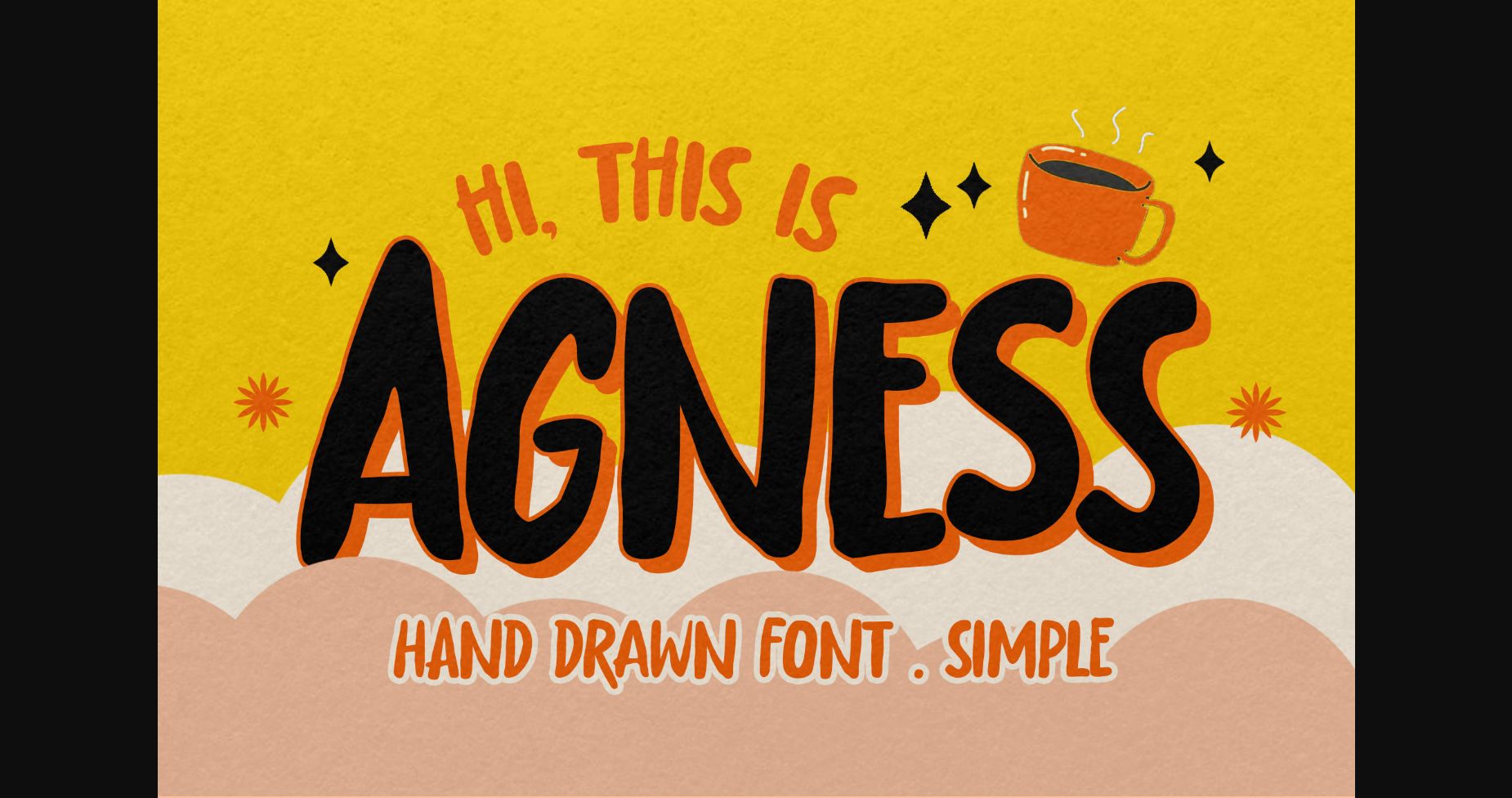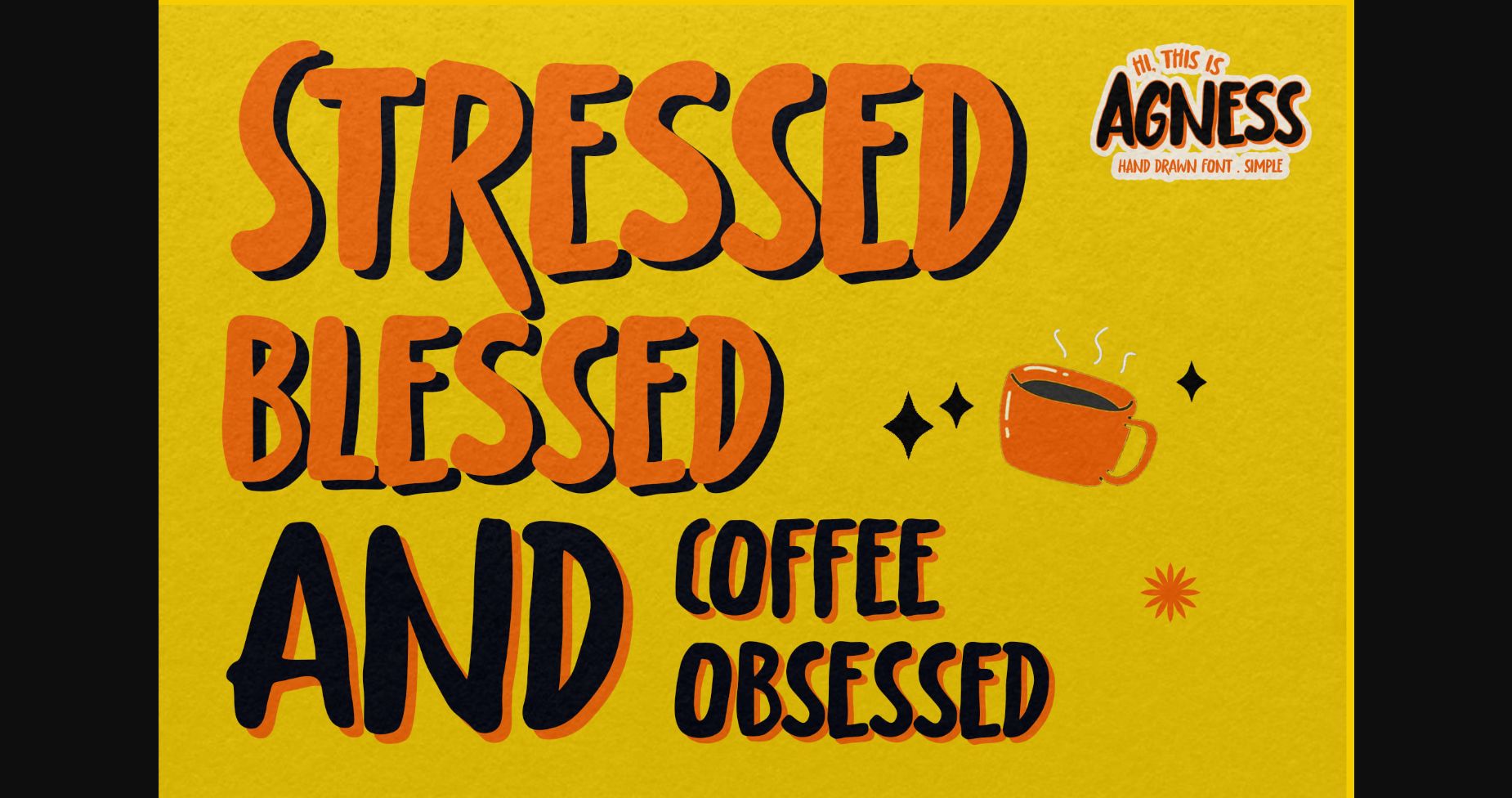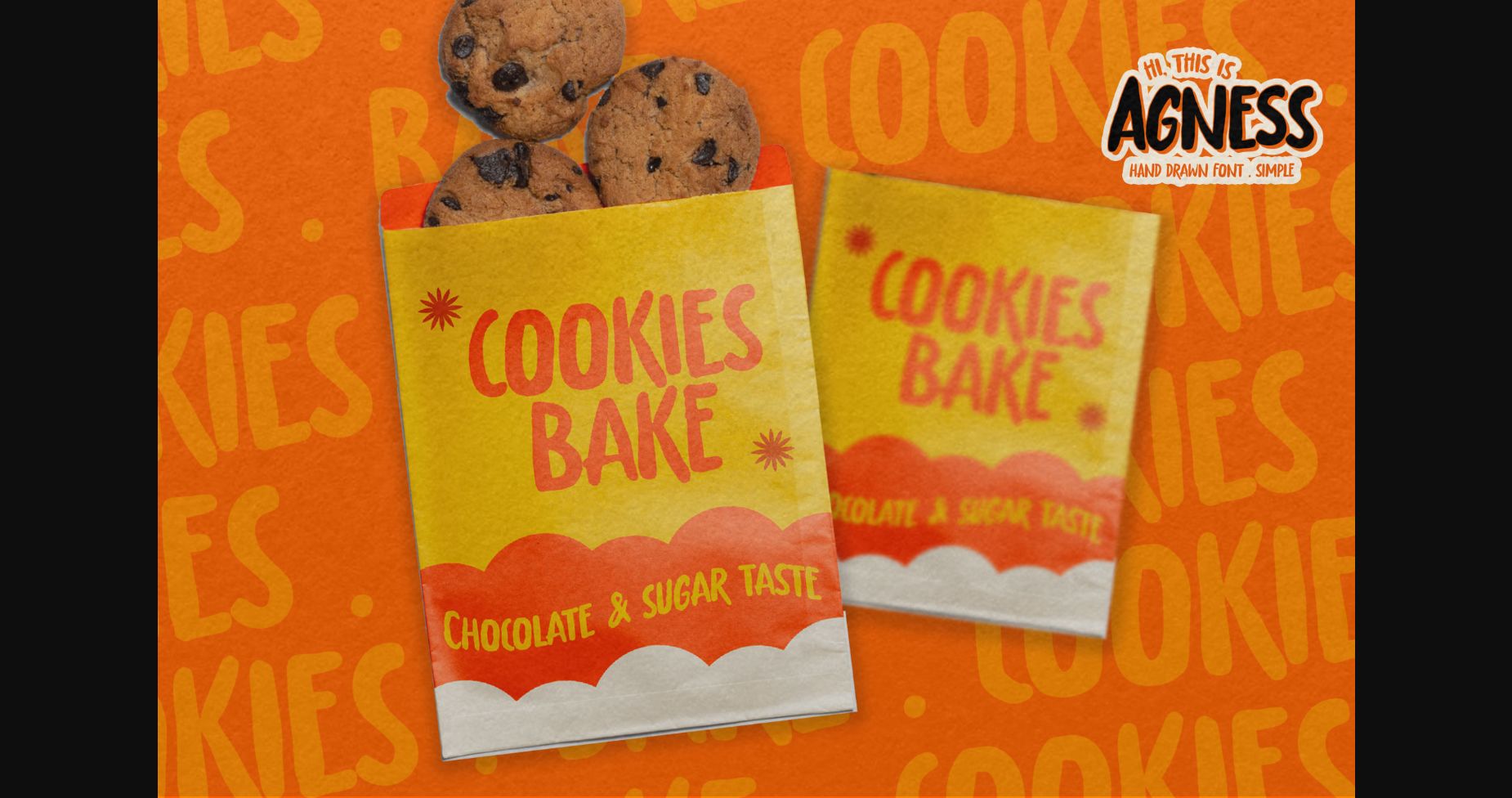
About Agness Font
Agness is a fun and quirky hand-drawn sans serif font. Its unique personality and charm will help you create lovely, original designs.